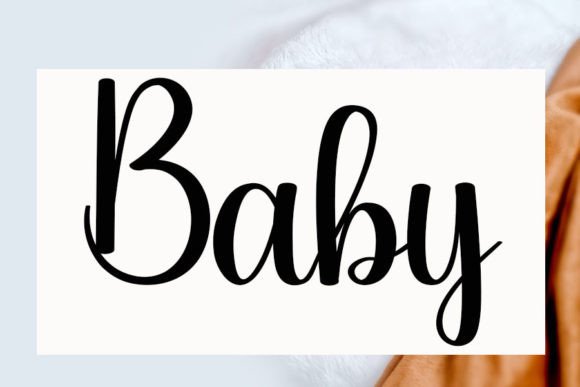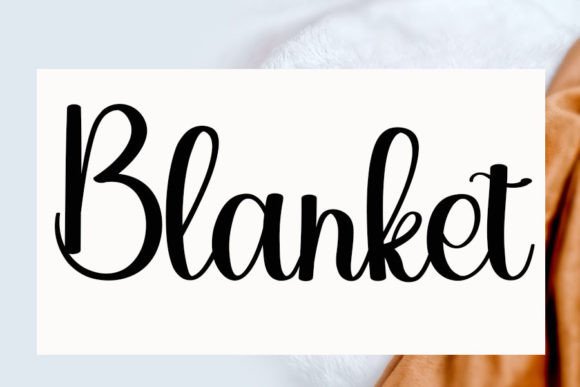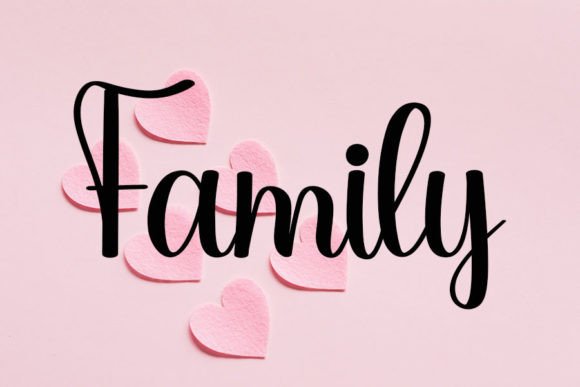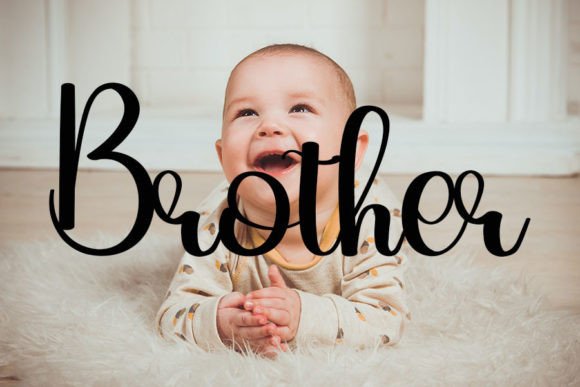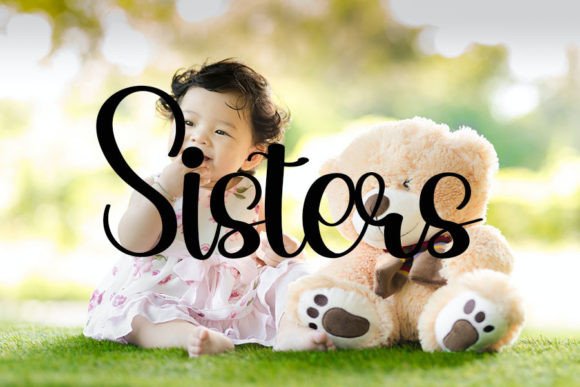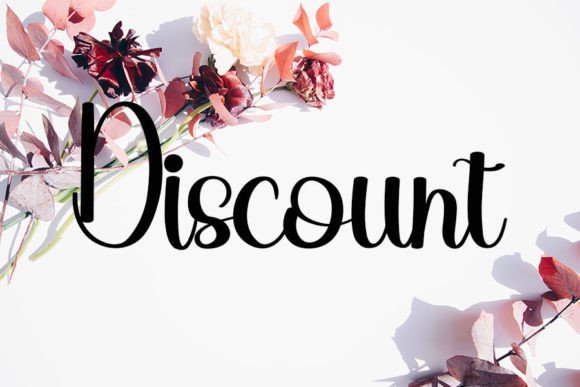
Introducing Child Font: The Elegant Handwritten Font for Your Design Needs
Are you on the lookout for a font that exudes elegance and sophistication? Look no further than Child Font, a beautiful handwritten font that is sure to capture your heart. With its incredibly distinct and timeless style, Child Font is perfect for designers and crafters who want to add a touch of class to their projects.
What Makes Child Font So Special?
Child Font is a neat and beautiful handwritten font that boasts an elegant touch. Its unique style is characterized by flowing lines, delicate curves, and a sense of refinement that is hard to find in other fonts. Whether you’re working on a branding project, a wedding invitation, or a DIY craft, Child Font is sure to bring a level of sophistication and glamour that will set your design apart.
Key Features of Child Font
- Elegant and Refined: Child Font features a beautiful, handwritten style that is both elegant and refined.
- Timeless Style: The font’s classic design ensures that it will never go out of style, making it a great investment for designers and crafters.
- Distinct and Readable: Child Font is incredibly distinct and easy to read, making it perfect for use in a variety of design projects.
- Versatile: The font can be used in a range of design applications, from branding and advertising to crafting and DIY projects.
How to Use Child Font in Your Design Projects
Child Font is incredibly versatile and can be used in a variety of design projects. Here are a few ideas to get you started:
- Branding and Logo Design: Use Child Font to create a sophisticated and elegant logo that will help your brand stand out.
- Wedding Invitations and Stationery: Add a touch of elegance to your wedding invitations, stationery, and other paper goods with Child Font.
- DIY Crafts: Use Child Font to add a personal touch to your DIY crafts, such as handmade cards, gift tags, and scrapbooking projects.
- Advertising and Marketing: Use Child Font in your advertising and marketing materials to add a level of sophistication and glamour.
Tips for Getting the Most Out of Child Font
Here are a few tips for getting the most out of Child Font:
- Experiment with Different Sizes: Child Font looks great in a range of sizes, from small and delicate to large and bold.
- Pair with Other Fonts: Try pairing Child Font with other fonts to create a unique and eye-catching design.
- Use in Combination with Images: Use Child Font in combination with images to add a level of elegance and sophistication to your design.
Child Font is a beautiful and elegant handwritten font that is perfect for designers and crafters who want to add a touch of sophistication to their projects. With its incredibly distinct and timeless style, Child Font is sure to become a favorite in your design arsenal. So why wait? Download Child Font today and start creating spectacular designs that will leave a lasting impression!
Child Font: The Perfect Choice for Designers and Crafters
In conclusion, Child Font is a beautiful and elegant handwritten font that is perfect for designers and crafters who want to add a touch of sophistication to their projects. With its incredibly distinct and timeless style, Child Font is sure to become a favorite in your design arsenal. So why wait? Download Child Font today and start creating spectacular designs that will leave a lasting impression!